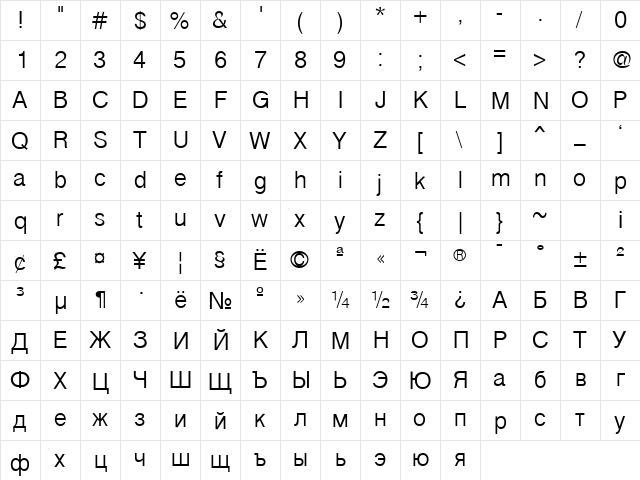
Cyrvetica Extra Light
Design Context for Cyrvetica Extra Typeface
Cyrvetica Extra is a composed and adaptable typeface that performs quietly and consistently across a wide range of design contexts. The delicate stroke weight brings airiness and refinement to layouts.